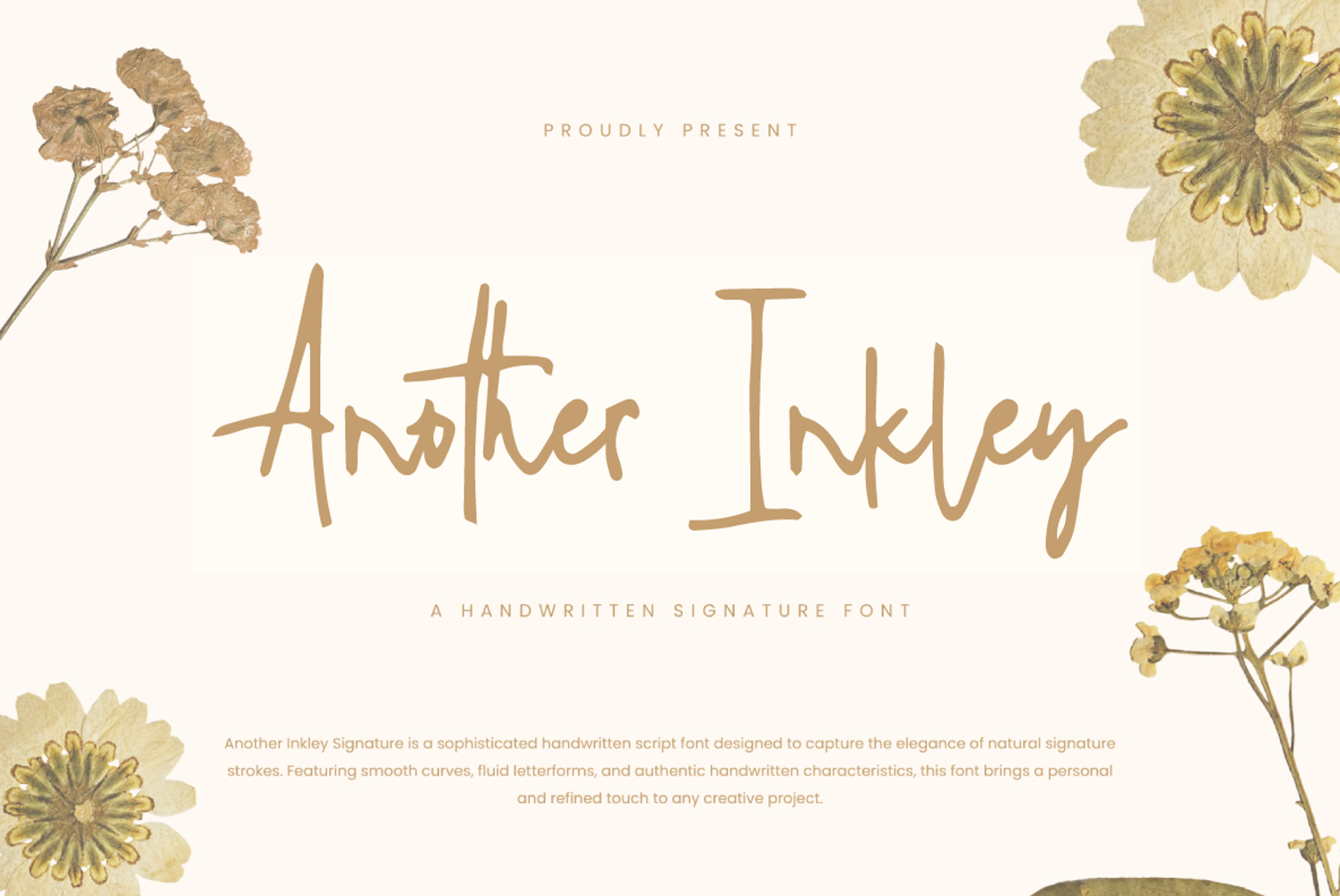
Another Inkley Signature
Another Inkley Signature with a handmade Signature style, decorative characters and a dancing baseline!
Another Inkley Signature with 150+ glyphs. The alternative characters were divided into several Open Type features such as Swash, Stylistic Sets, Stylistic Alternates, and Ligature. The Open Type features can be accessed by using Open Type savvy programs such as Adobe Illustrator, Adobe InDesign, Adobe Photoshop Corel Draw X version, And Microsoft Word. And this Font has given PUA unicode (specially coded fonts). so that all the alternate characters can easily be accessed in full by a craftsman or designer.
Another Inkley Signature Features :
Uppercase & Lowercase International Languange & Symbols Support Punctuation & Number PUA Unicode Range Standard Ligatures Discretionary Ligatures Stylistic Alternates Stylistic Set.